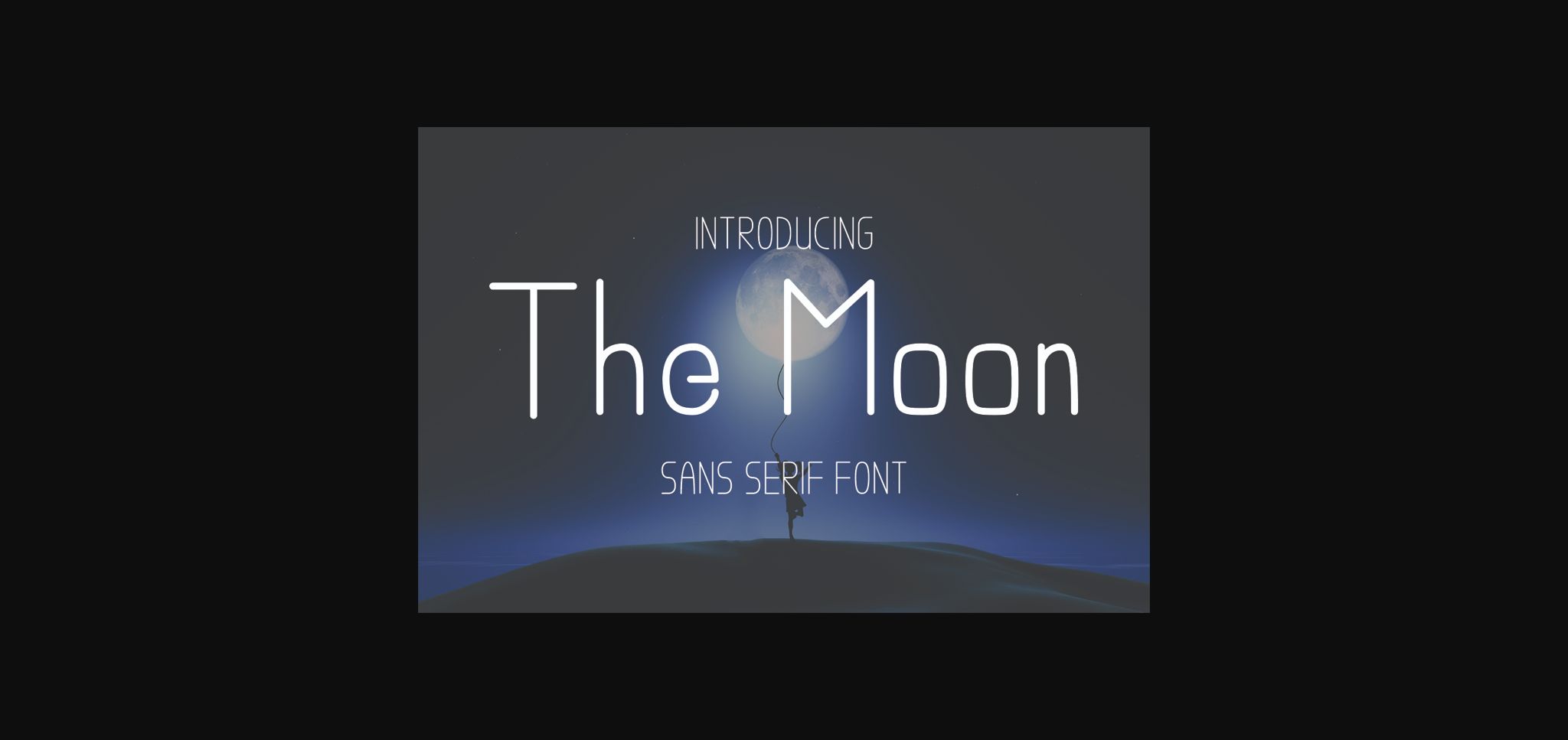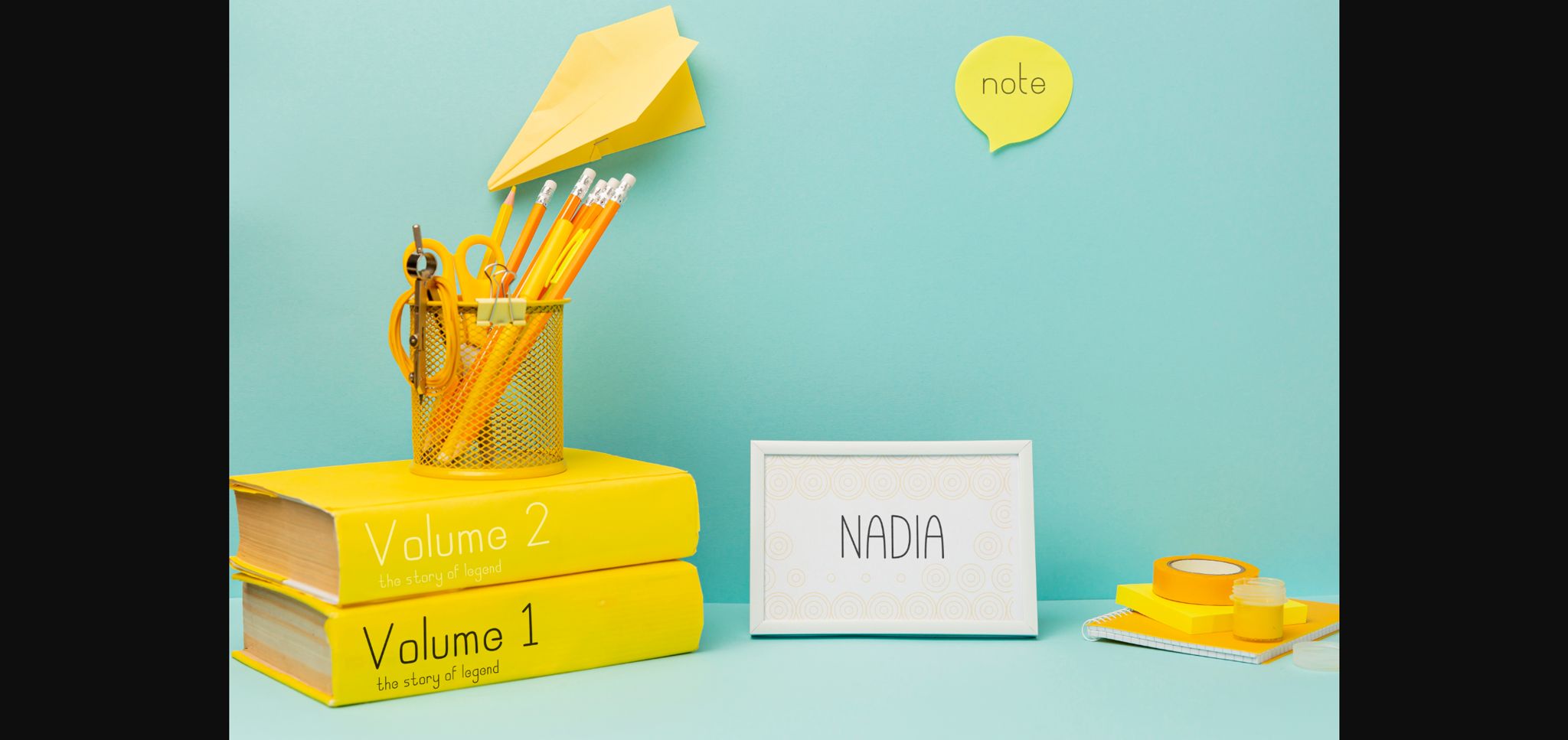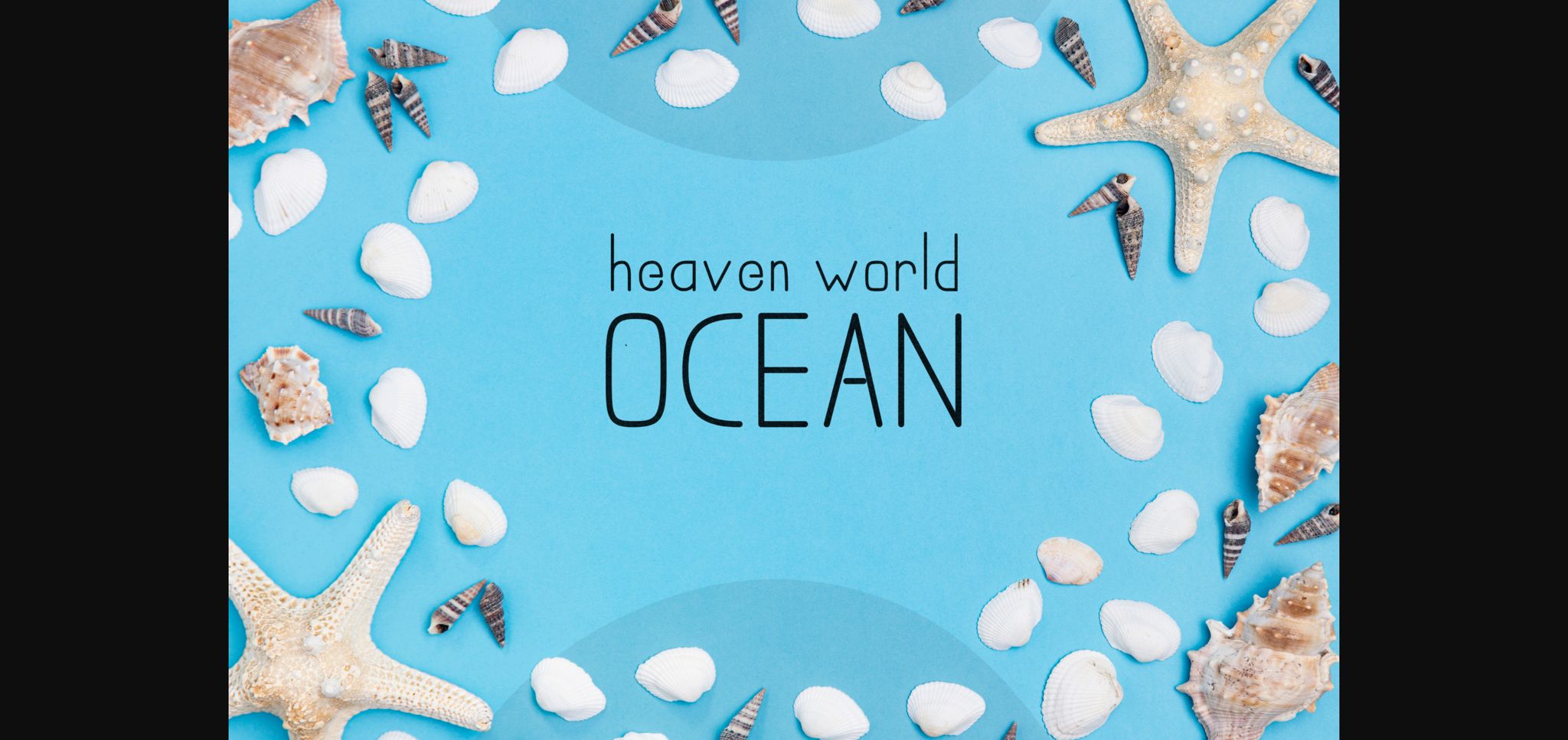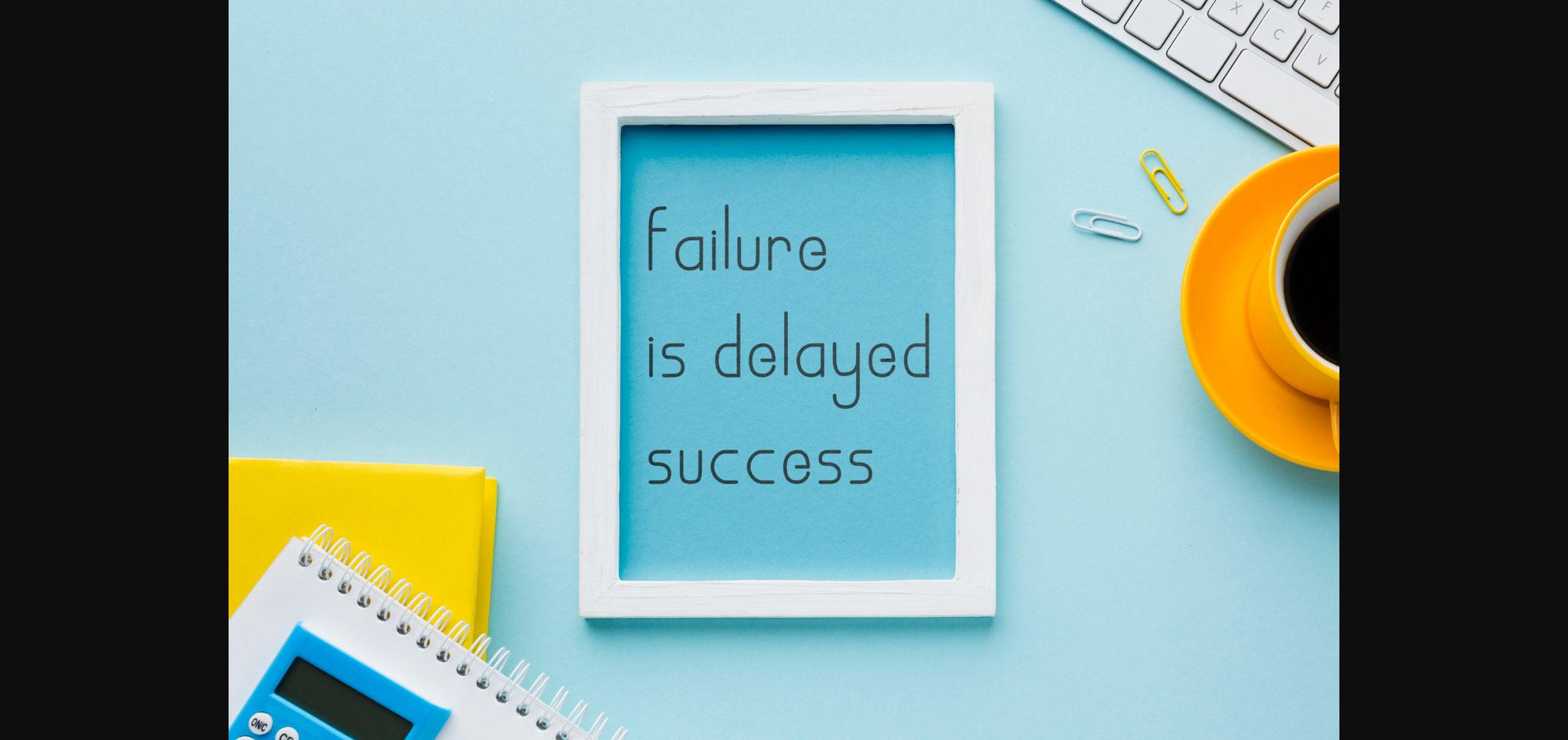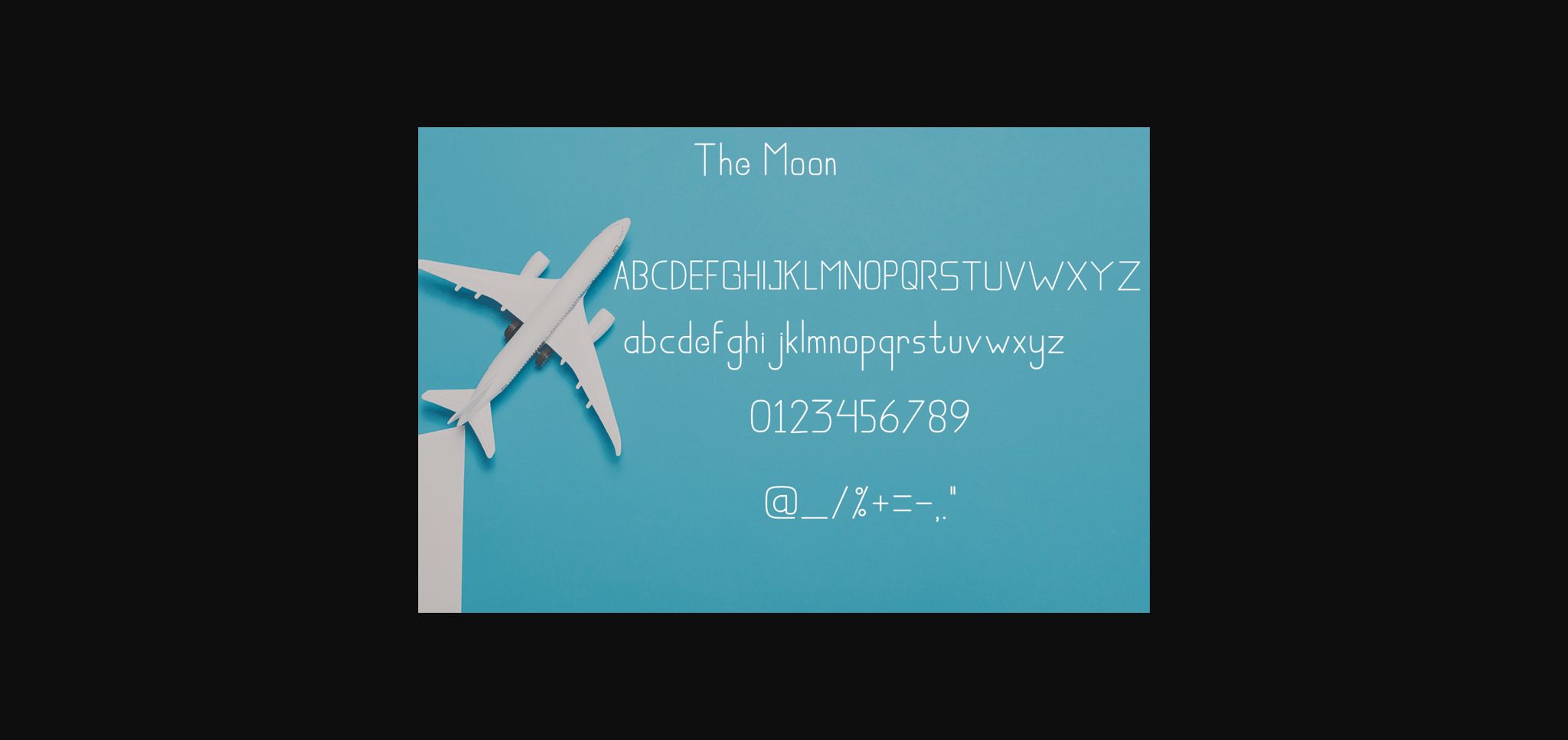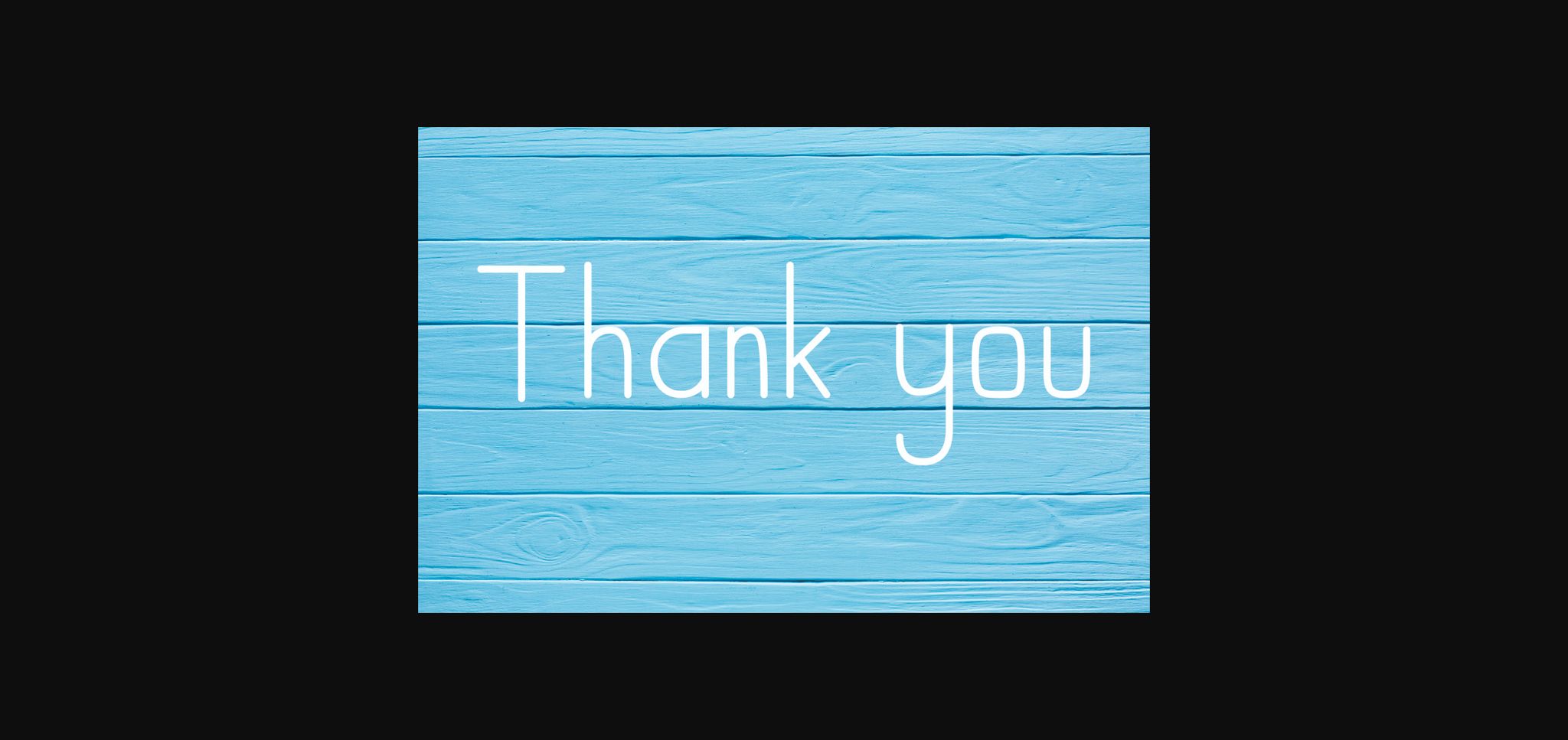
HomeSans Serif FontsThe Moon Font Sans Serif Fonts The Moon Font FacebookXPinterestWhatsApp 1 of 8 ... The Moon Font Poster 2... The Moon Font Poster 3... The Moon Font Poster 4... The Moon Font Poster 5... The Moon Font Poster 6... The Moon Font Poster 7... The Moon Font Poster 8... About The Moon Font The Moon is an elegant and neat sans serif font. It can easily be matched to an incredibly large set of projects, so add it to your creative ideas and notice how it makes them stand out! DOWNLOAD NOW People also explored Sweet Charm Font Aligator Font Puklaymux Font Zeremony Font Gumdrop Barista Battem Shampo Font Fine Marker Font Jelajahi Etha Font Delberg Font 282 0 TagsThe Moon Font Previous articleIntegrity FontNext articleEl Fonte Font LEAVE A REPLY Cancel reply Comment: Please enter your comment! Name:* Please enter your name here Email:* You have entered an incorrect email address! Please enter your email address here Website: Save my name, email, and website in this browser for the next time I comment. Personal Use Free Engebrechtre Personal Use Free Read more about this font Yukarimobile Personal Use Free Read more about this font Angelika Playful Personal Use Free Read more about this font Snaily Personal Use Free Read more about this font BLOG How to Cut Any Font on Cricut: Convert a Font to SVG (Free) Turn any font into a clean SVG so it cuts crisp on Cricut - a quick 3-step workflow using a free font-to-SVG tool. Best Fonts for T-Shirt Design – Top 2025 Picks Fonts That Capture the Spirit of New York City Transform Your Website: Elevate Your Typography with 7 Best Web Font Generators